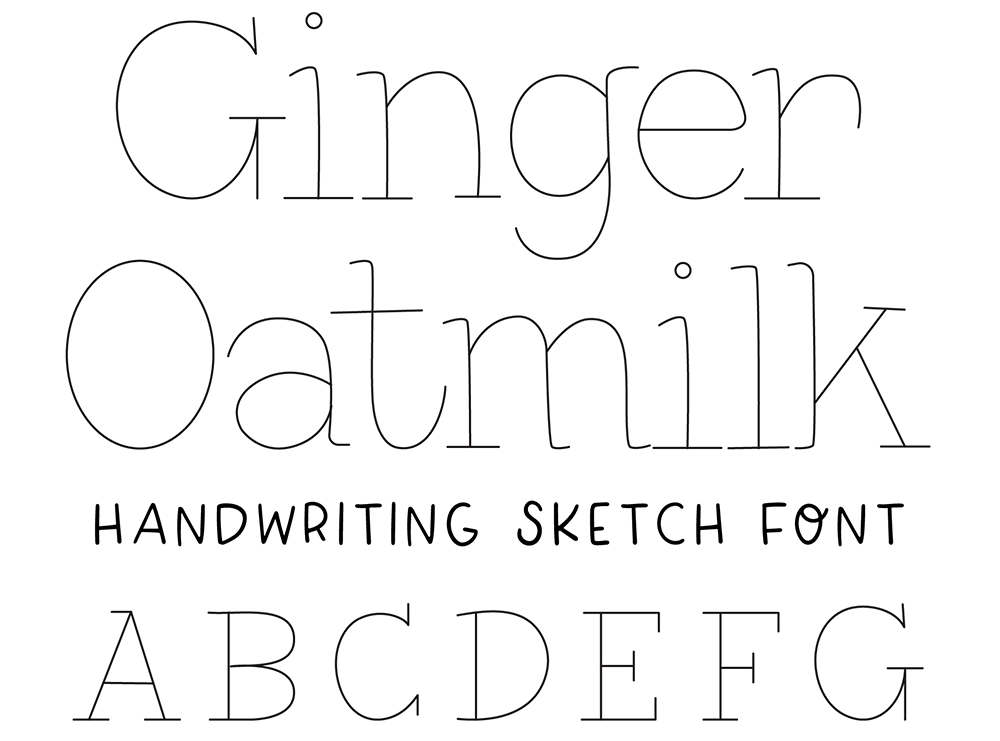
Image 1 of 2 Image 2 of 2 GINGER OATMILK Serif Handwriting sketch font. $2.50 Serif handwriting Sketch font. True single line font. Add To Cart Added! Serif handwriting Sketch font. True single line font. Reviews Reviewer Name Review Date Star Rating Description Posted on Etsy Product Show More